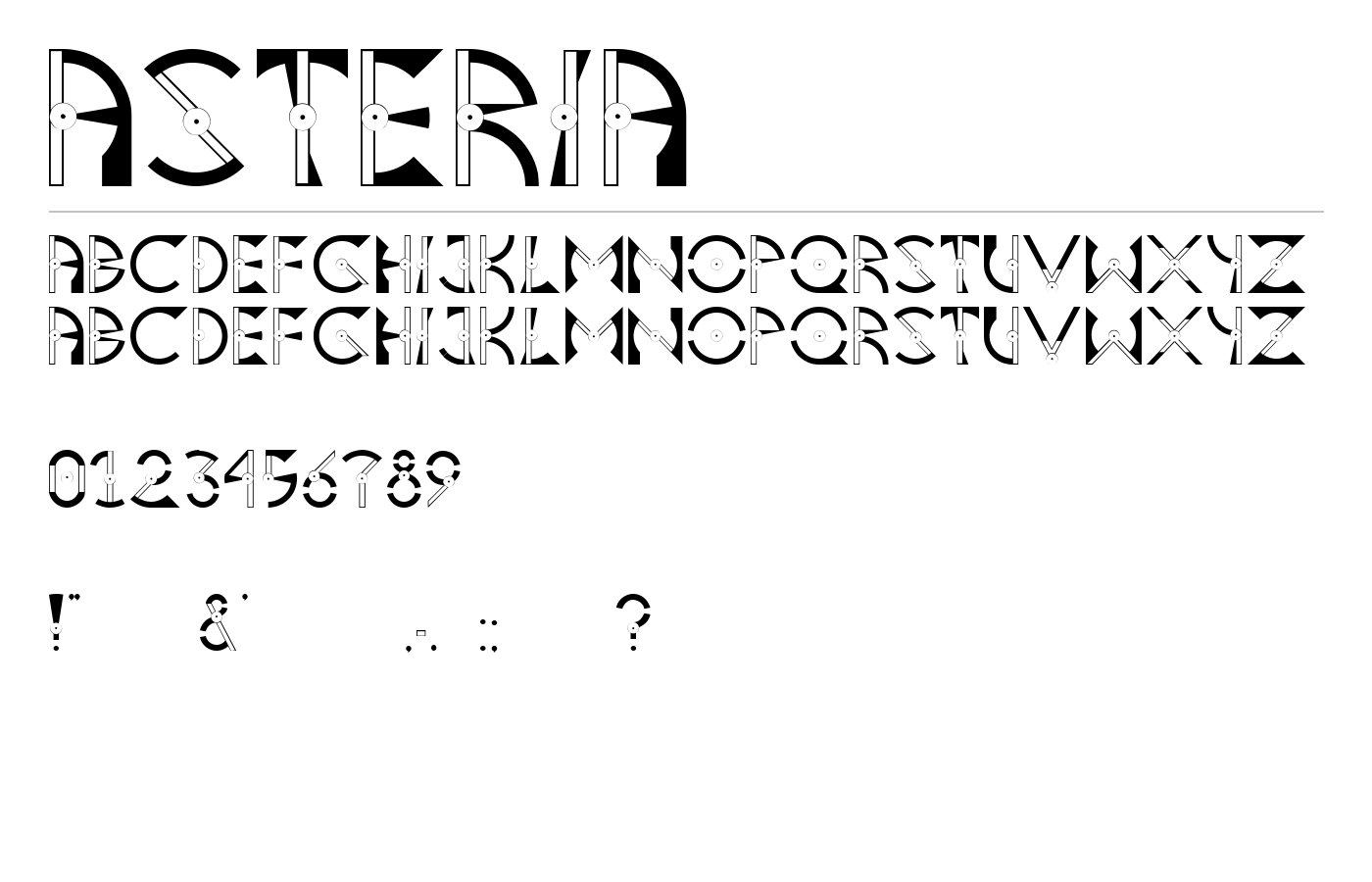
Asteria is a unique, decorative sans serif font featuring strong geometric shapes and high contrast between thick and thin strokes. Its intricate, almost mechanical design with circular accents gives it a futuristic and artistic feel, making it ideal for bold headlines, logos, and creative branding projects that seek to stand out with a modern, avant-garde style. This font works best in large sizes where its detailed structure can be fully appreciated.
Asteria Font